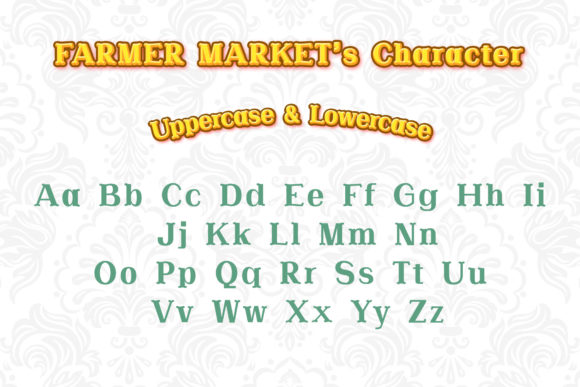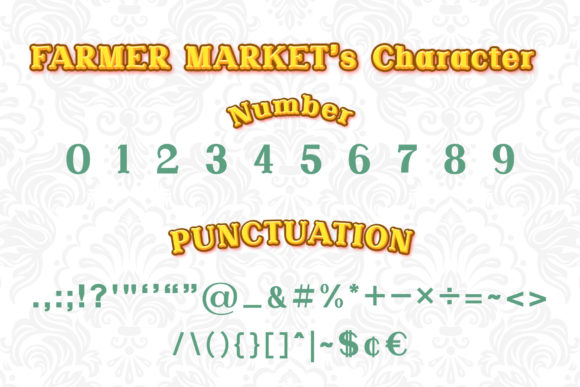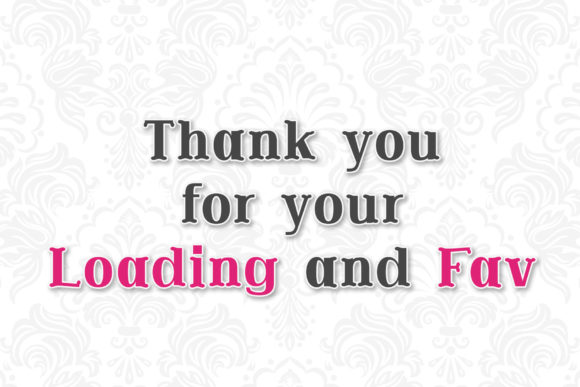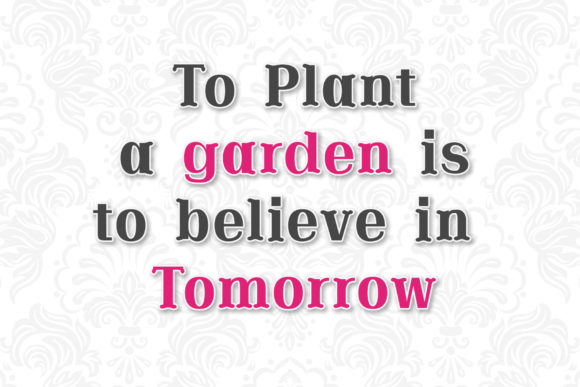
Introducing Farmer Market Font: The Perfect Addition to Your Design Arsenal
Are you a designer, crafter, or DIY enthusiast looking for a font that can elevate your creative projects? Look no further than the Farmer Market Font, a bold and neat serif font that’s perfect for making your designs stand out. In this article, we’ll dive into the features and benefits of Farmer Market Font, and explore how it can be used to add a touch of rustic charm to your work.
A Bold and Neat Serif Font
Farmer Market Font is a beautifully crafted serif font that’s designed to make a statement. Its bold and neat lines make it perfect for headlines, titles, and other applications where you want to grab attention. The font’s classic serif design gives it a timeless feel that’s reminiscent of traditional printing, while its clean lines and simplicity make it highly versatile.
Matching Your Creative Ideas
One of the best things about Farmer Market Font is its incredible flexibility. It can easily be matched to an incredibly large set of projects, from rustic-themed crafts to modern digital designs. Whether you’re creating a logo, a poster, or a social media graphic, Farmer Market Font is the perfect choice. Its neutral design makes it easy to pair with other fonts, and its bold lines ensure that it will stand out in any design.
Rustic Charm for Designers and Crafters
For designers and crafters who specialize in rustic or vintage-themed projects, Farmer Market Font is a dream come true. The font’s classic design and bold lines evoke the feeling of a traditional farmer’s market, with its fresh produce and handmade crafts. Whether you’re creating a logo for a craft business or designing a label for a homemade product, Farmer Market Font is the perfect choice.
Farmer Market Font is incredibly versatile, making it perfect for a wide range of projects. Here are just a few ideas to get you started:
- Logos and branding materials for craft businesses
- Posters and flyers for events and promotions
- Social media graphics and ads
- Labels and packaging for homemade products
- Signs and menus for restaurants and cafes
Why Choose Farmer Market Font?
So why choose Farmer Market Font over other fonts? Here are just a few reasons:
- Unique and eye-catching design: Farmer Market Font has a distinctive design that’s sure to grab attention.
- Highly versatile: The font can be used for a wide range of projects, from rustic-themed crafts to modern digital designs.
- Easy to read: The font’s clean lines and simple design make it easy to read, even at small sizes.
- Timeless feel: The font’s classic design gives it a timeless feel that’s reminiscent of traditional printing.
In conclusion, Farmer Market Font is a bold and neat serif font that’s perfect for designers, crafters, and DIY enthusiasts who want to add a touch of rustic charm to their creative projects. Its highly versatile design makes it suitable for a wide range of projects, from logos and branding materials to posters and social media graphics. With its unique and eye-catching design, Farmer Market Font is sure to make your designs stand out. So why wait? Add Farmer Market Font to your design arsenal today and see the difference it can make!